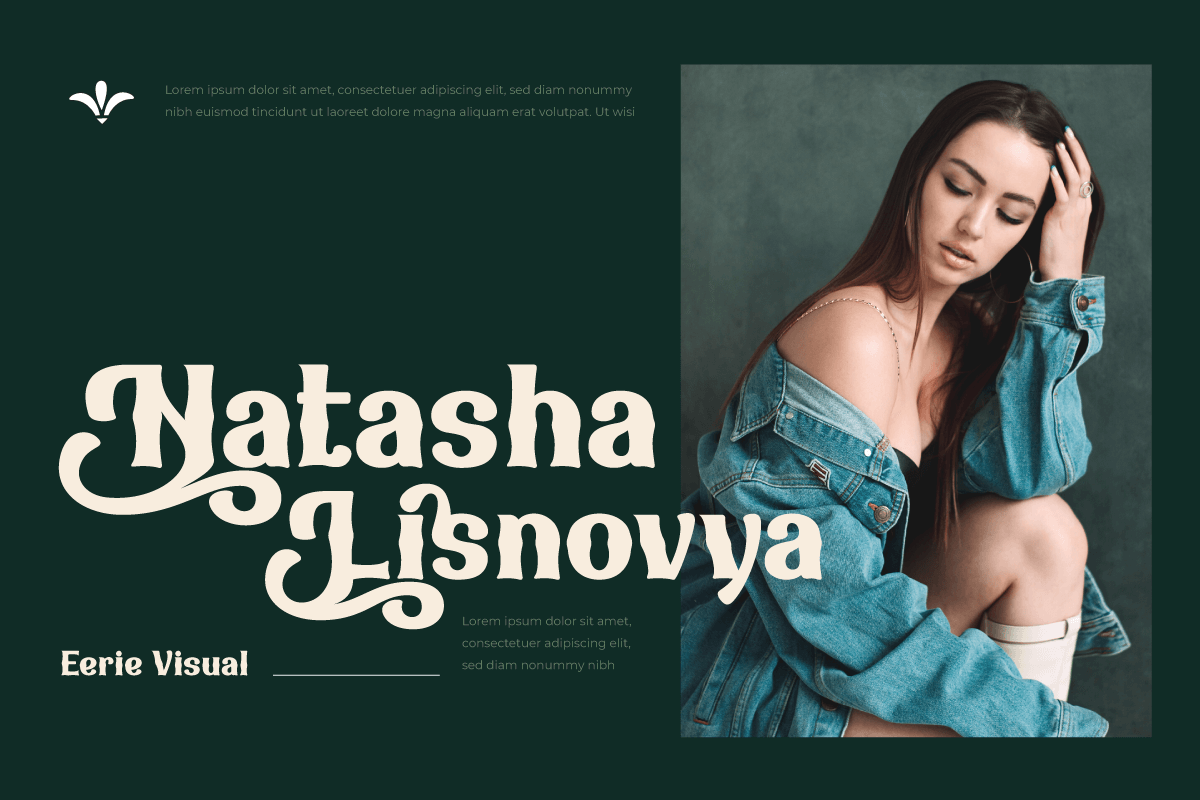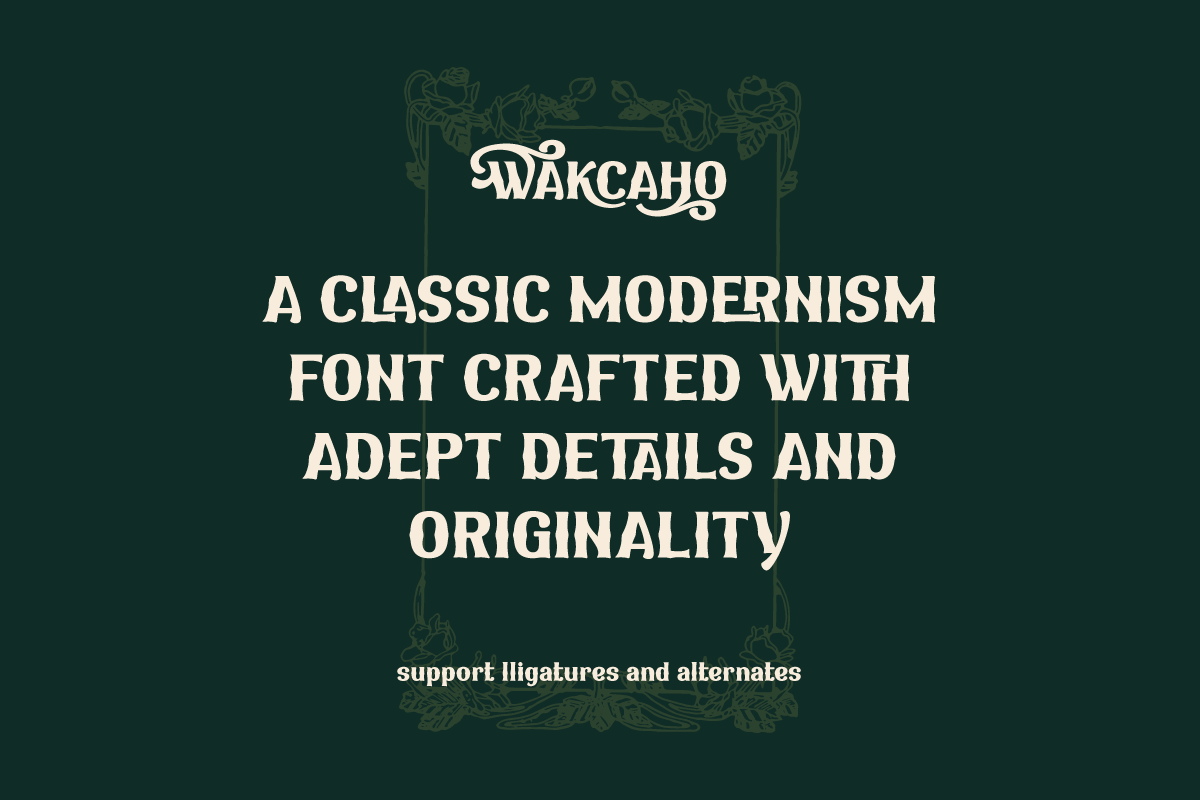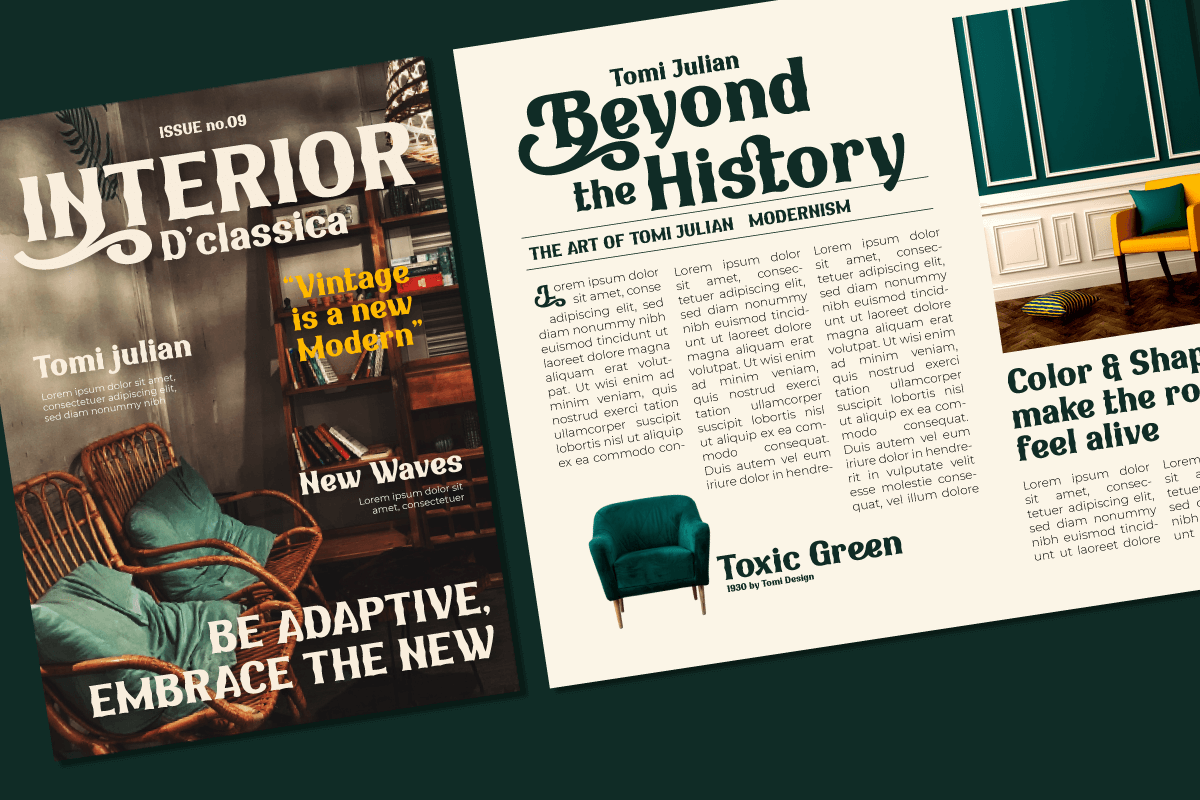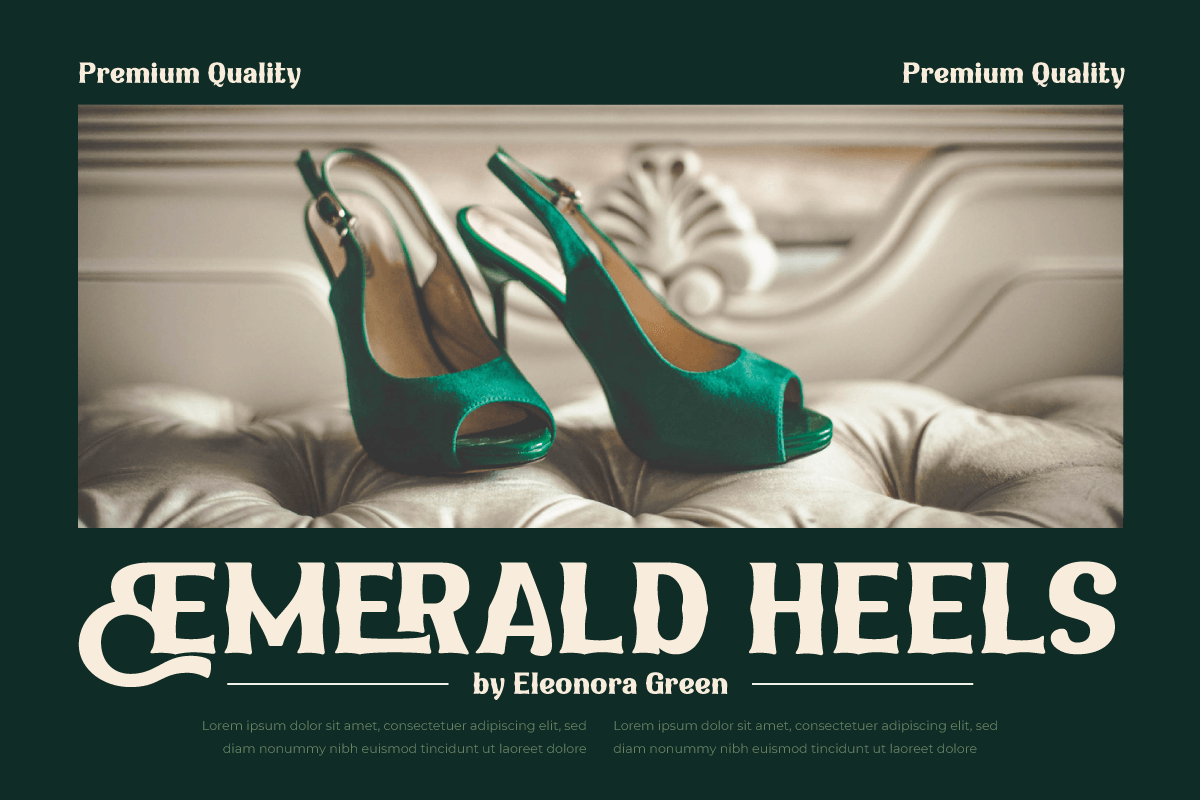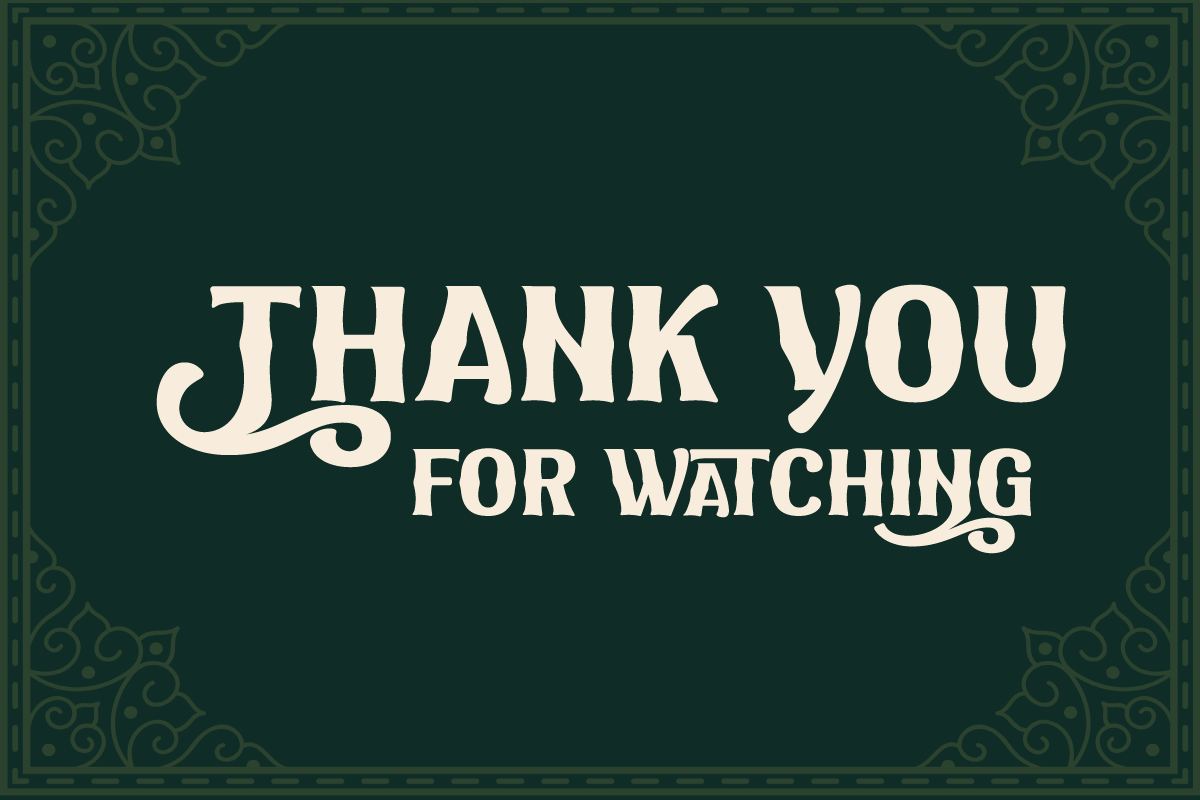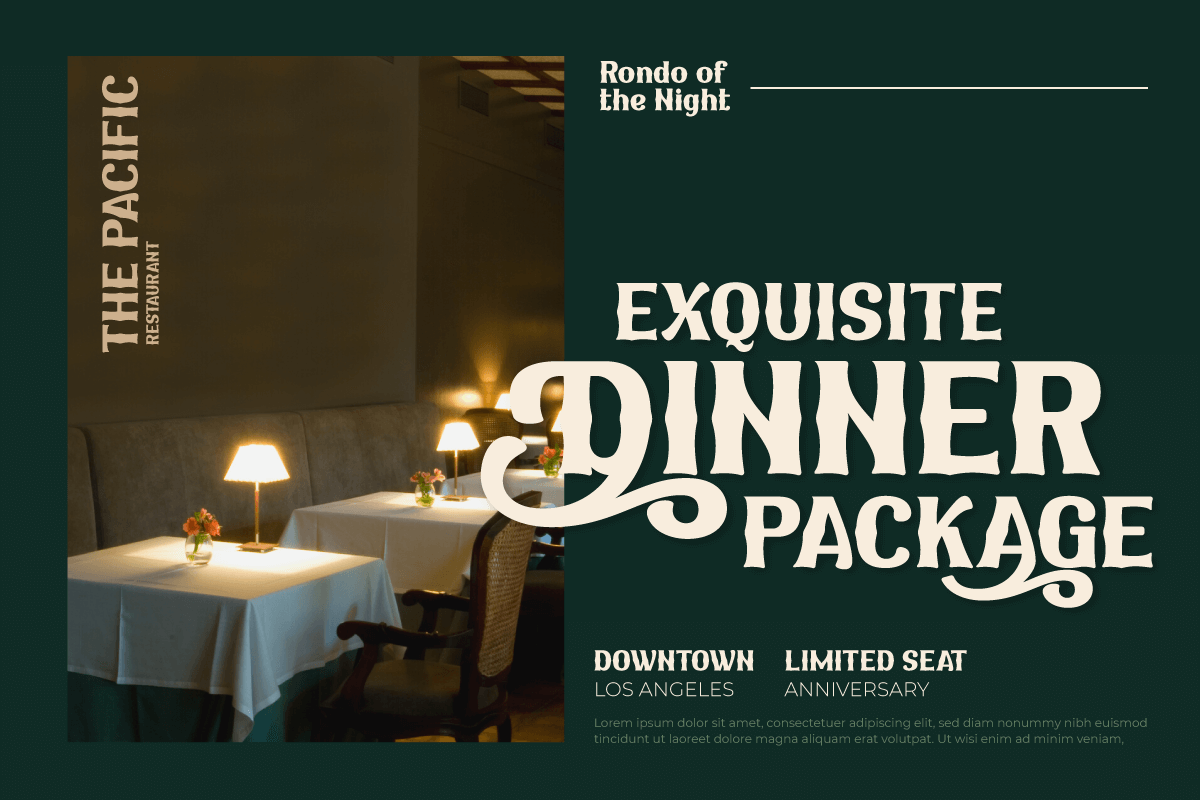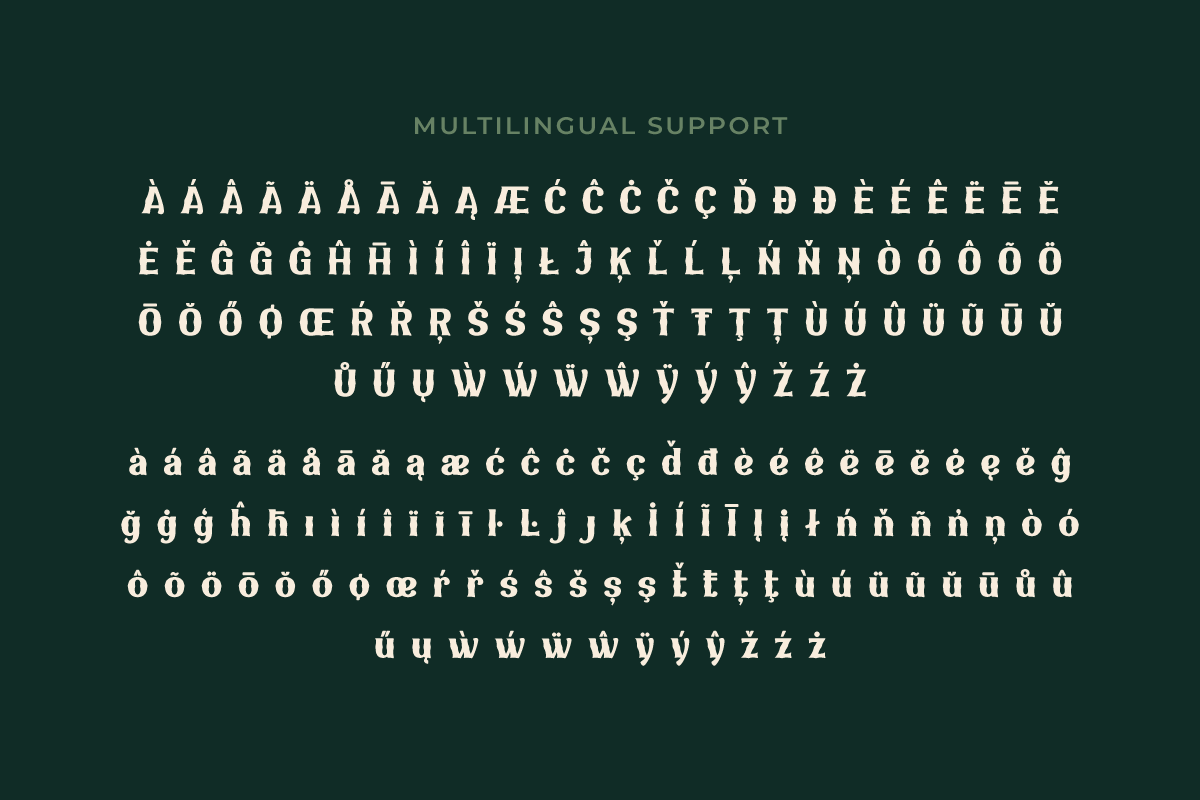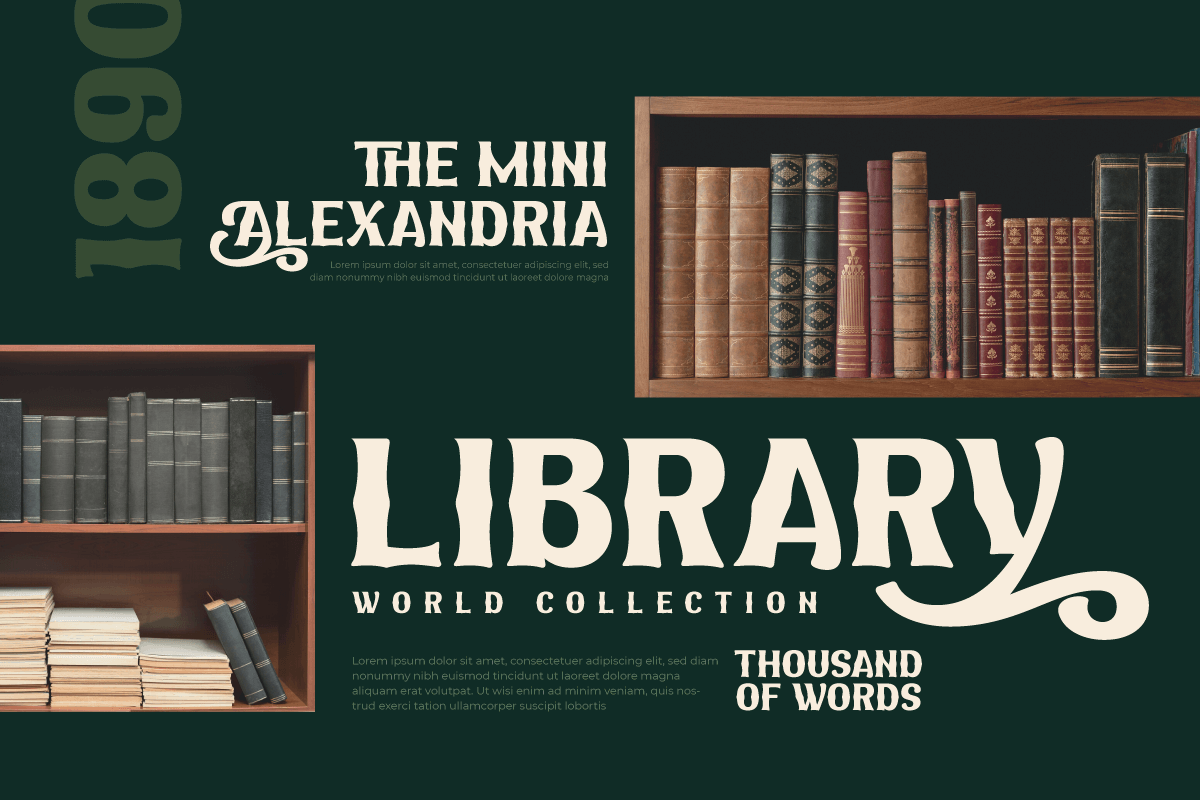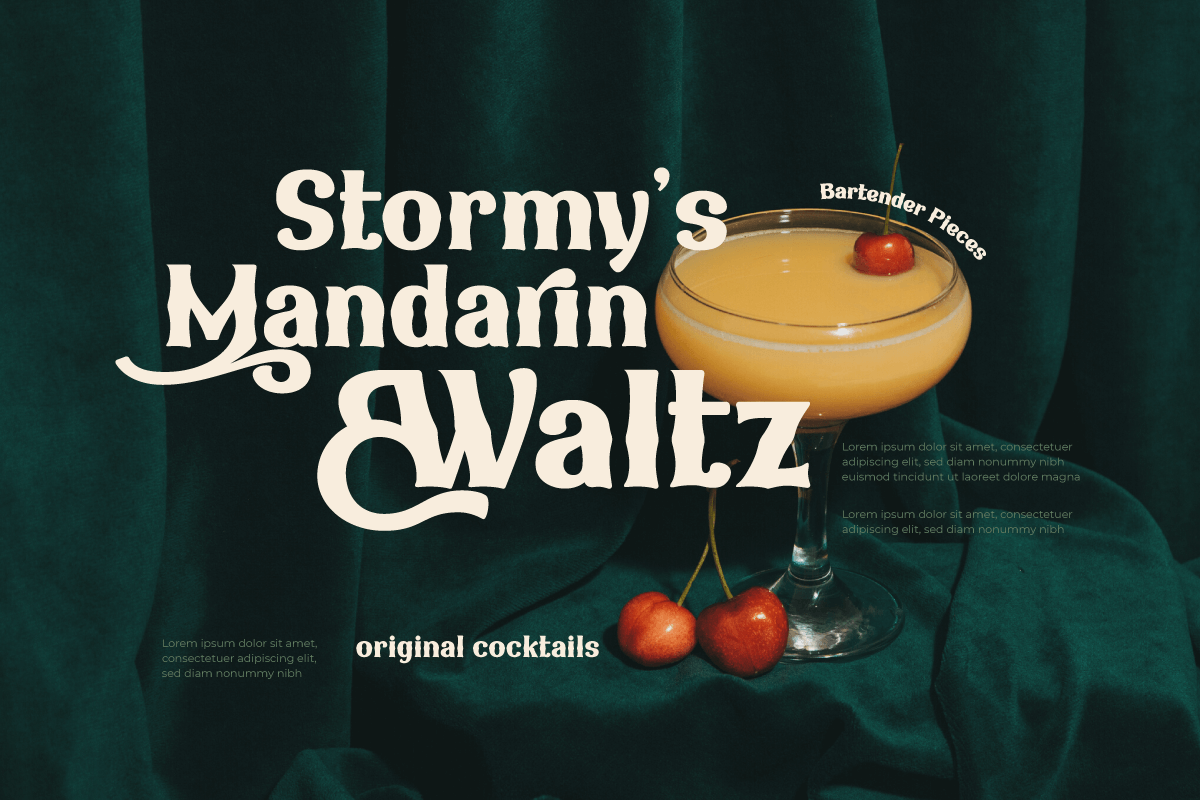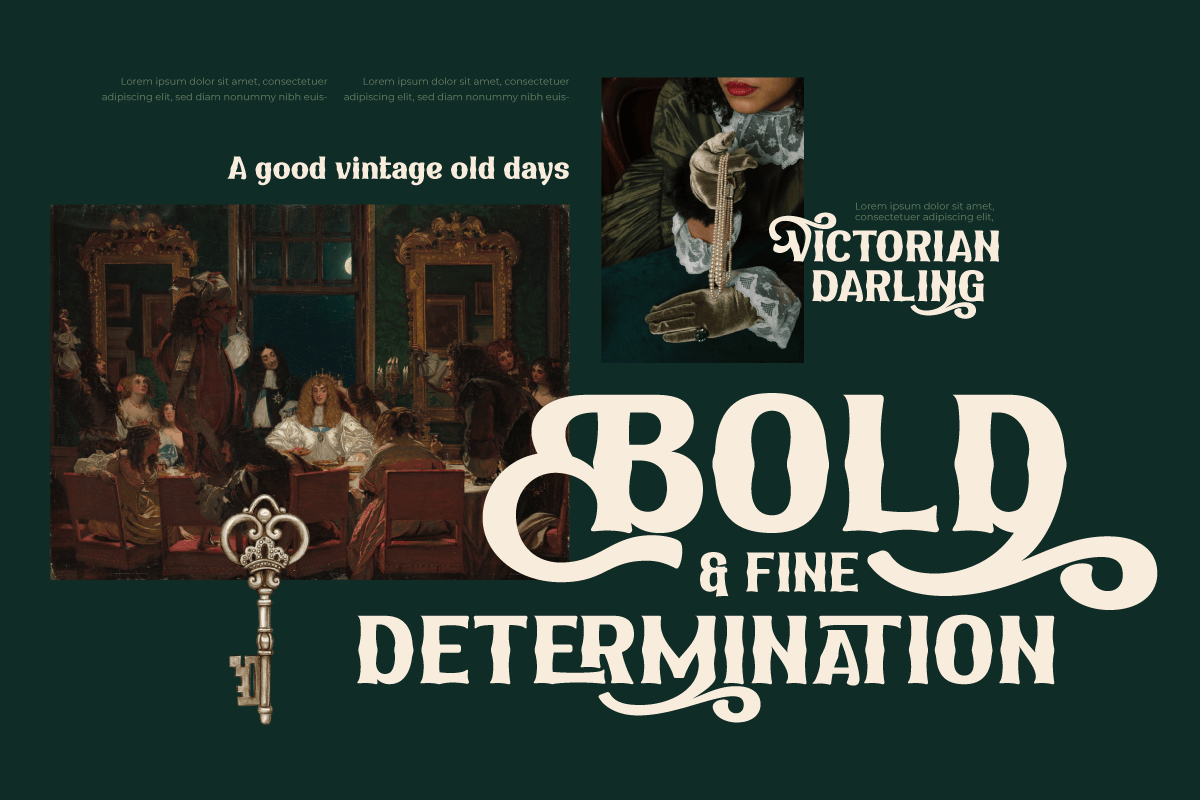
WAKCAHO | Serif Classic Modernism
Wakcaho is a traditional serif typeface that is ideal for classic or retro modernist projects. With an exquisite and outstanding personality, this font will provide a memorable traditional touch to your designs.
Wakcaho’s particular characteristics, like ligatures and alternatives, provide you the freedom to create unique text display variations. These typographic components can be simply combined to create distinctive and eye-catching compositions. Furthermore, Wakcaho is bilingual, allowing you to display your messages in a variety of languages all across the world. This allows you to reach an international audience while maintaining consistency in your designs regardless of language barriers.
By using Wakcaho as the main font for your project, you will achieve an attractive style with a traditional vibe. Use Wakcaho right away to give your ideas a remarkable appeal and a unique visual experience.